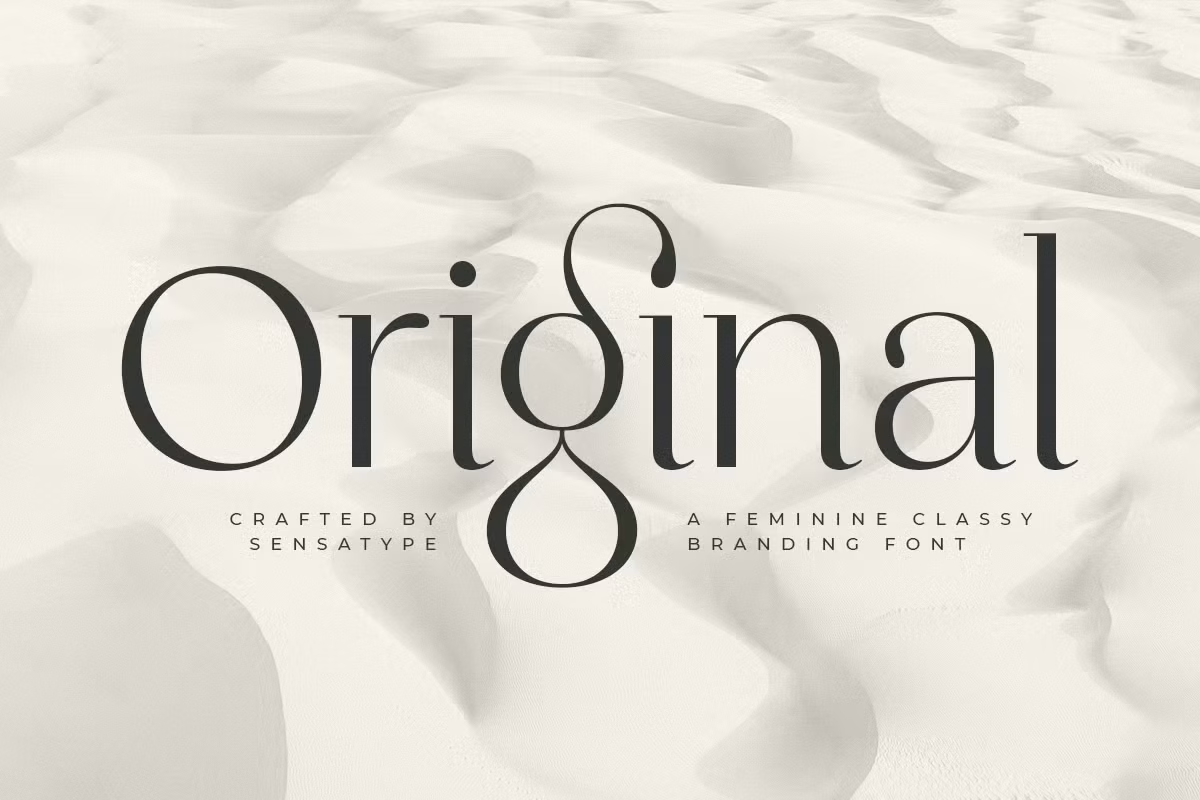
Original Font Free Download is a classy branding typeface designed to bring elegance, confidence, and a timeless aesthetic to your projects. With its clean lines, stylish curves, and high-contrast serifs, Original is ideal for luxury logos, fashion labels, editorial spreads, packaging, and sophisticated web design.
Crafted with modern branding in mind, this font features uppercase and lowercase characters, numerals, punctuation, and graceful ligatures—making it highly versatile for both display and refined body text. It pairs beautifully with minimalist layouts and elevated design concepts.
Whether you’re building a chic brand identity or creating high-end visual content, Original Font Free Download delivers a polished and contemporary look. Test it in personal or mockup projects, and don’t forget to secure the proper license for any commercial use. Make a refined and confident impression with this stylish serif font.